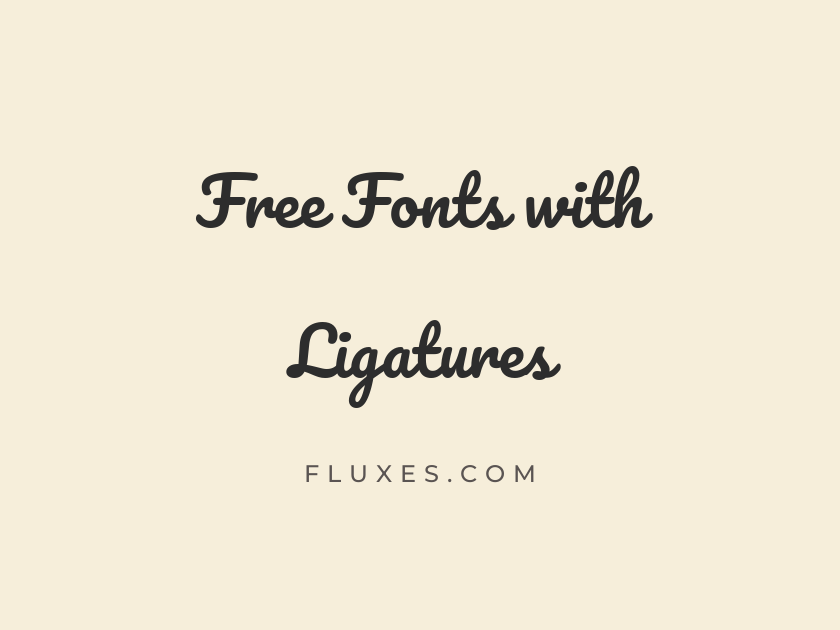
56 Best Free Fonts with Ligatures
Ligatures are the small connective tissue of typography: the joined “fi”, the swash tail that leaps from one letter into the next, the double-f that merges into a single elegant unit. They exist because certain letter pairs collide awkwardly on their own, and a good ligature turns that collision into a moment of grace. This matters most in script and calligraphic typefaces, where connecting strokes are the entire point, but plenty of serif text faces, geometric sans faces, and even monospaced coding fonts build in genuine OpenType ligature features.
Finding free fonts with ligatures on Google Fonts is easier than it used to be, but knowing which ones actually render alternate glyphs, contextual swashes, or code-friendly symbol pairs, rather than just looking vaguely connected, takes some digging. What follows covers wedding-ready scripts, editorial serif faces with classic fi and fl ligatures, and programming fonts built for developers who want arrows and equals signs to read as single characters.
Handwritten love notes and sunny surf shop signs
Born in San Francisco as a tribute to the city’s 1950s surf culture, Pacifico rolls letters into each other with soft, rounded loops that feel genuinely handwritten rather than digitally stamped. Its built-in ligatures smooth over the trickiest joins, so words never look like separate letters glued together.
Warmly written, joyfully connected letters for every card
Dancing Script is probably the most widely used free script on the web, and for good reason: its bouncing baseline and generous ligature set stay legible even at small sizes. It pairs comfortably with almost any clean sans serif for logos or invitations.
Delicate monoline script for soft, romantic headlines
Thin, monoline strokes give Sacramento a lighter touch than most connecting scripts, closer to a fountain pen than a brush. The ligatures here are understated rather than showy, linking letters without extra flourish.
Bold brush lettering for confident wedding signage
Alex Brush behaves like an actual dip pen loaded with ink: thick downstrokes, tapering hairlines, and ligatures that let long words flow as a single continuous gesture. It reads best set large, where the brush texture and connecting swashes have room to breathe.
Elegant calligraphy for save-the-dates and place cards
Allura leans elegant and formal, with tighter spacing and crisper terminals than its brushier cousins. Its ligature set handles common letter pairs gracefully, which makes it a dependable choice for names and short phrases on invitations.
Flowing signature script for elegant monograms
Great Vibes has become something of a default for elegant script across wedding templates, and its long, looping ascenders and descenders explain why. The ligatures do real work here, letting cursive letterforms overlap without ever looking cramped.
Copperplate-inspired script for formal invitation suites
Modeled on nineteenth-century copperplate engraving, Pinyon Script carries dramatic swashes on its capitals and suits formal stationery more than casual branding. Its ligature glyphs are essential rather than decorative, since several letter combinations would otherwise overlap incorrectly.
Soft, rounded French-inspired script lettering
Parisienne feels friendlier and rounder than most formal scripts, with a slight forward lean and generous curves. It suits packaging, greeting cards, and logotypes that want warmth more than austerity.
Delicate calligraphy for elegant certificate lettering
Tangerine is thin and precise, closer to formal handwriting than brush lettering, which makes the bold weight worth using if you want the connecting strokes to hold up at smaller sizes. It has long been a favorite for diplomas, certificates, and quotation graphics.
Compact formal script for elegant place settings
Petit Formal Script trades dramatic flourish for tight, upright discipline, closer to old engraving plates than modern brush lettering. It works well at smaller sizes where showier scripts fall apart.
Casual signature script for personal, handwritten notes
Named like a person and styled like an actual signature, Mrs Saint Delafield leans loose and informal, with letters that trail off unevenly the way real handwriting does. Its ligatures are irregular by design, which is exactly what sells the illusion of a genuine autograph.
Ornate script lettering for luxury brand names
Herr Von Muellerhoff pushes further into ornamentation than most free scripts, with tall, looping ascenders that demand generous line spacing. Reserve it for short words like logotypes or monograms; a full paragraph becomes hard to read.
Playful script for cafe menus and packaging
Cookie has a rounder, friendlier rhythm than most connecting scripts, which is why it turns up so often on bakery packaging and casual branding. Its ligatures keep double letters and awkward pairs looking natural rather than forced.
When pairing a script font for headlines, keep the body copy in a plain, high-legibility serif or sans so the ligature-heavy display face stays the star of the page.
With this many free, genuinely ligature-equipped options on Google Fonts, there’s little reason to settle for a script or serif that only fakes the connected look. Download a handful, test them at the sizes you’ll actually use, and let the small details of the joins do some of the design work for you.